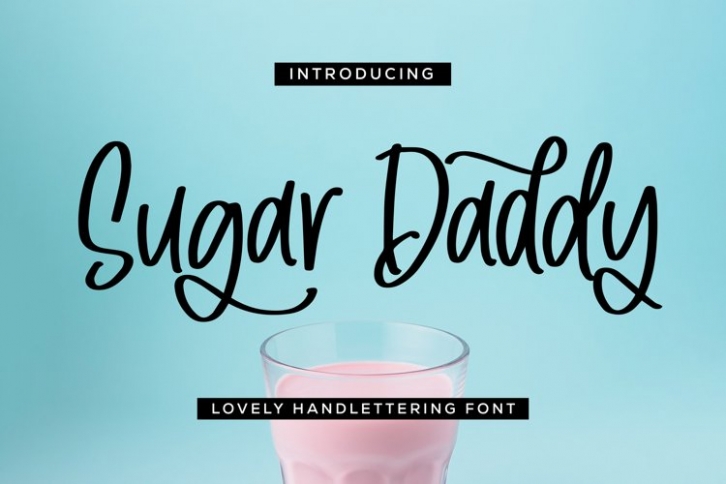
Sugar Daddy is a trendy and unique font with an authentic style. It was designed by plusstore and it's a great choice for creative people who need such a font. It was released on April 30, 2022 and the file size is 13.29 MB. Sugar Daddy will add an organic vibe to any design idea!